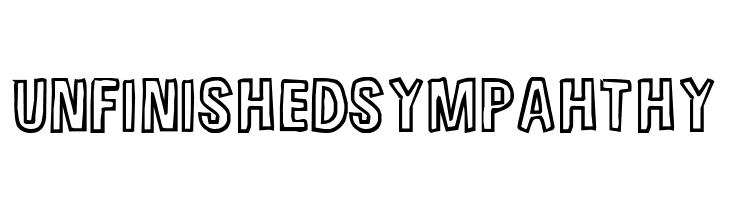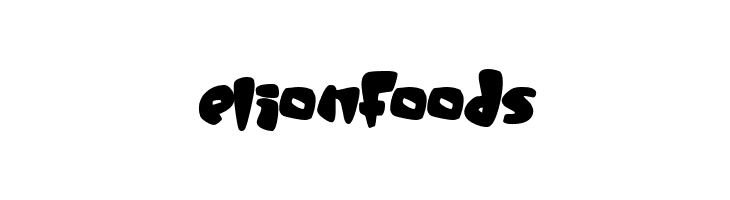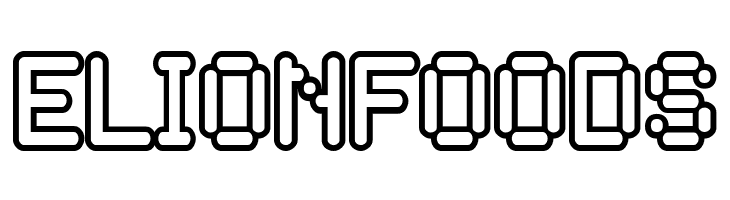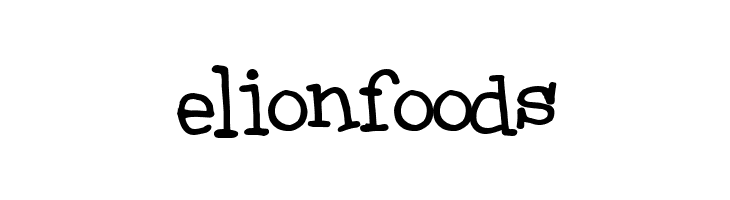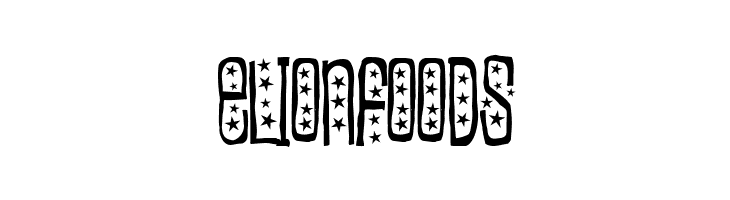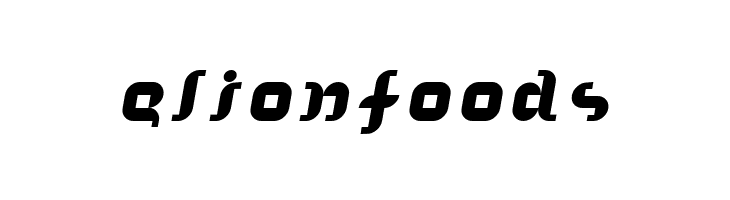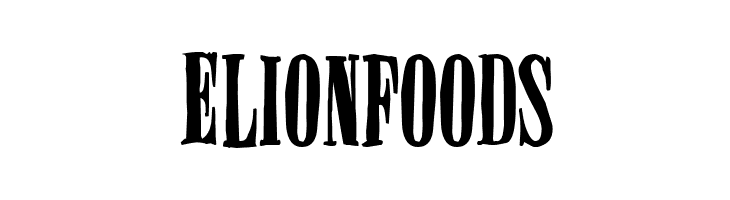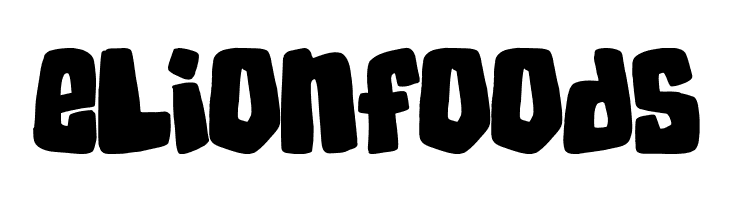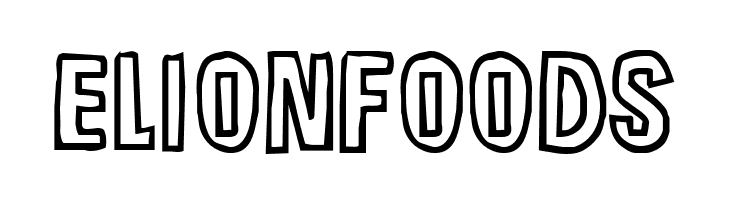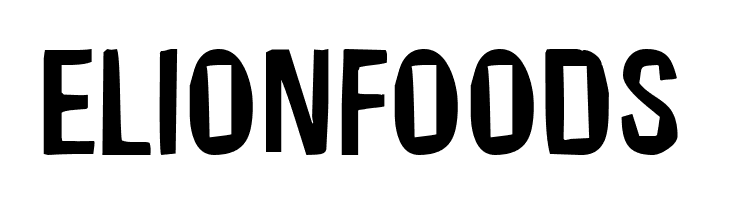
• JellyBelly
A playful, bold font with a bubbly, rounded style and cartoonish charm.
• Rocketman
A bold, geometric font with interconnected lines and modular shapes.
• Black boys on mopeds
A playful, hand-drawn font with a whimsical and friendly style.
• Easily amused
A playful, star-adorned decorative font with bold characters.
• In the arms of sleep
A bold, slanted font with sharp angles and a modern, dynamic style.
• Miserable
A bold, high-contrast serif font with elongated, condensed characters.
• SkaterDudes
A bold, playful font with a youthful, urban vibe and rounded, chunky characters.
• Unfinished Sympahthy
A bold, outlined font with a playful and modern style.
• UnfinishedSympathy2
Bold, modern font with a slightly condensed style and uniform stroke width.
• Wide awake Black
A bold, angular font with a dynamic and modern style.